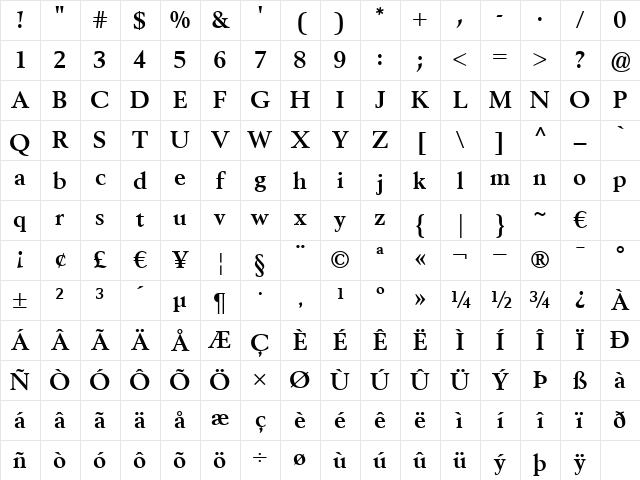
VolvoSerif Bold
Design Context for VolvoSerif
VolvoSerif carries the refined structure of traditional serif typography, with bracketed terminals and considered proportions that communicate credibility and craft. Its bold stroke weight gives it real presence on the page.
Pro Tip: Use VolvoSerif for editorial body copy and considered headline work. Pair with a neutral sans for UI elements or captions to create a classic hierarchy.